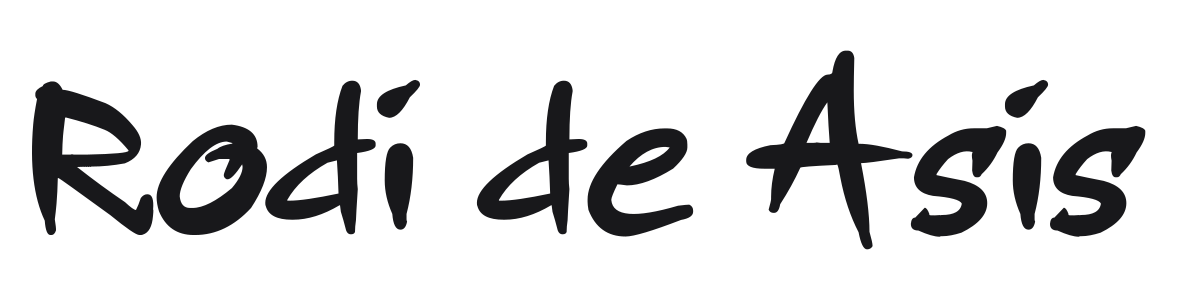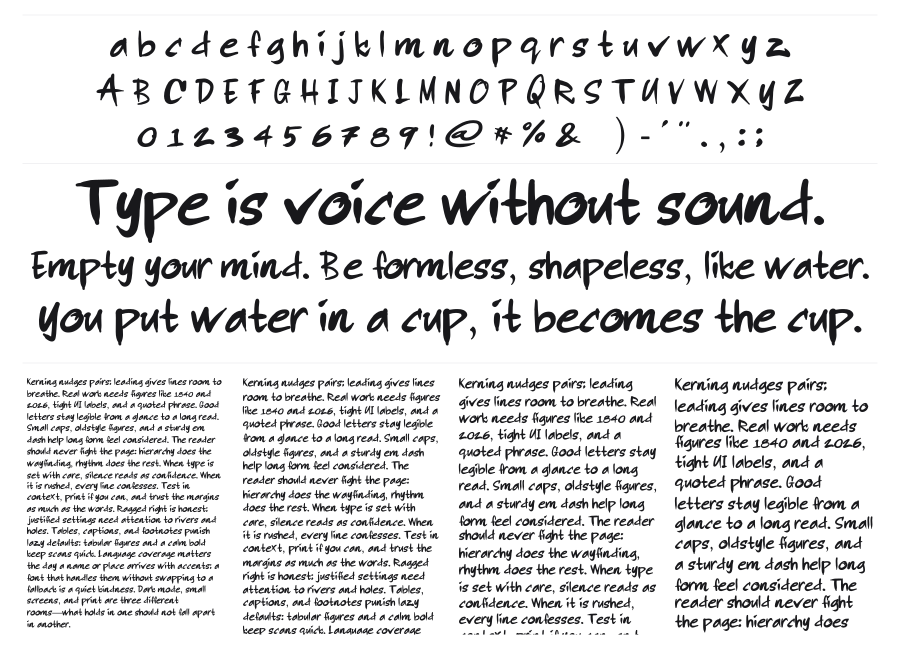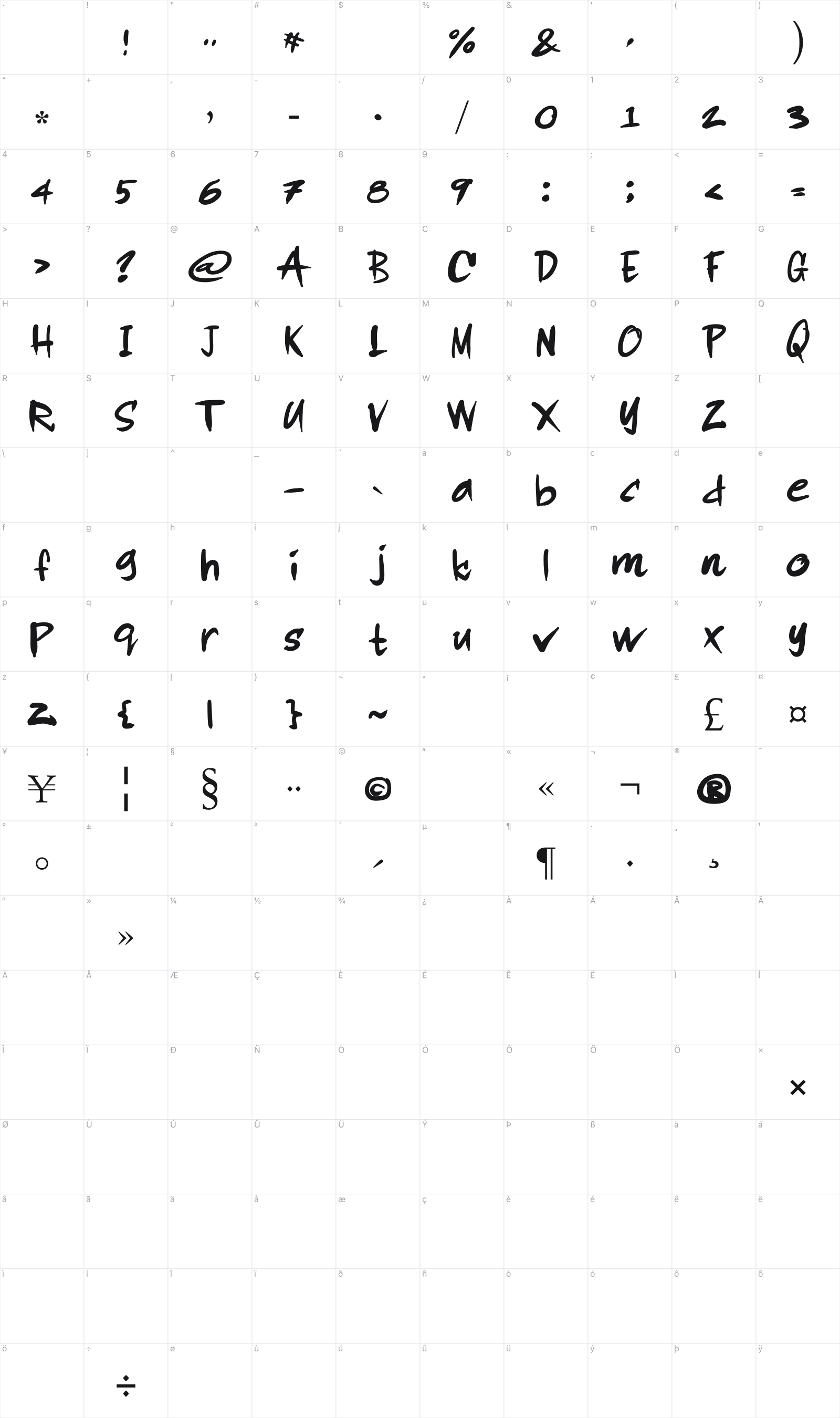
Rodi de Asis
Rodi de Asis is a bold casual script that feels like confident, natural handwriting done with a broad brush. The thick rounded strokes and loose letterform connections give it an energetic, approachable warmth. It works well wherever you need something personal and lively at large sizes.